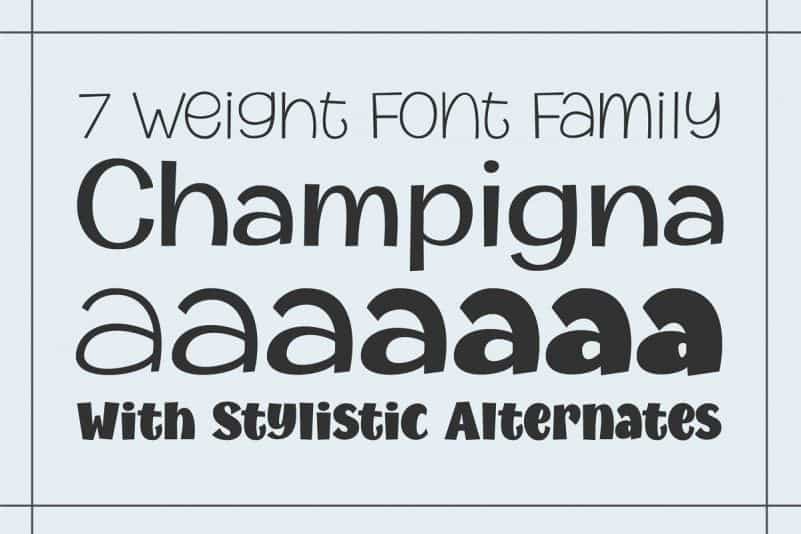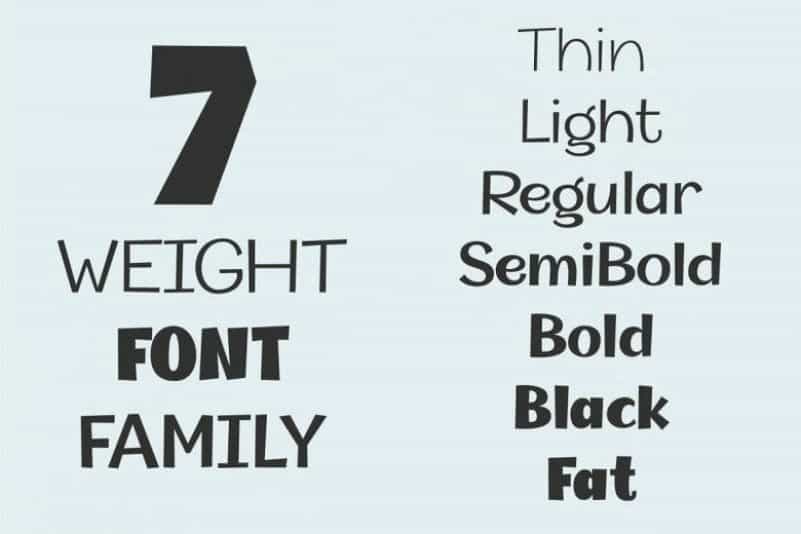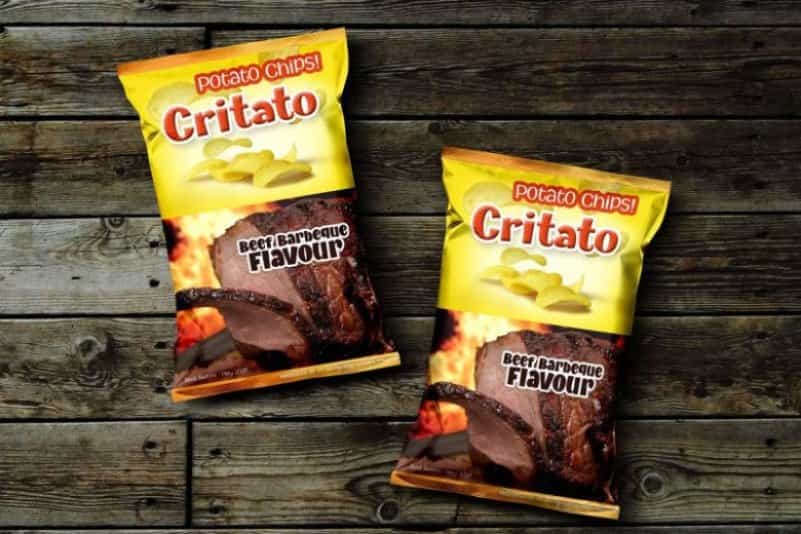
Champigna Comic – is a contemporary sans serif typeface with 7 weights. A multipurpose, up-to-date, compact font family which is great for making strong, elegant text. This font is the perfect one for your new project. It is made and spread by Royaltype.